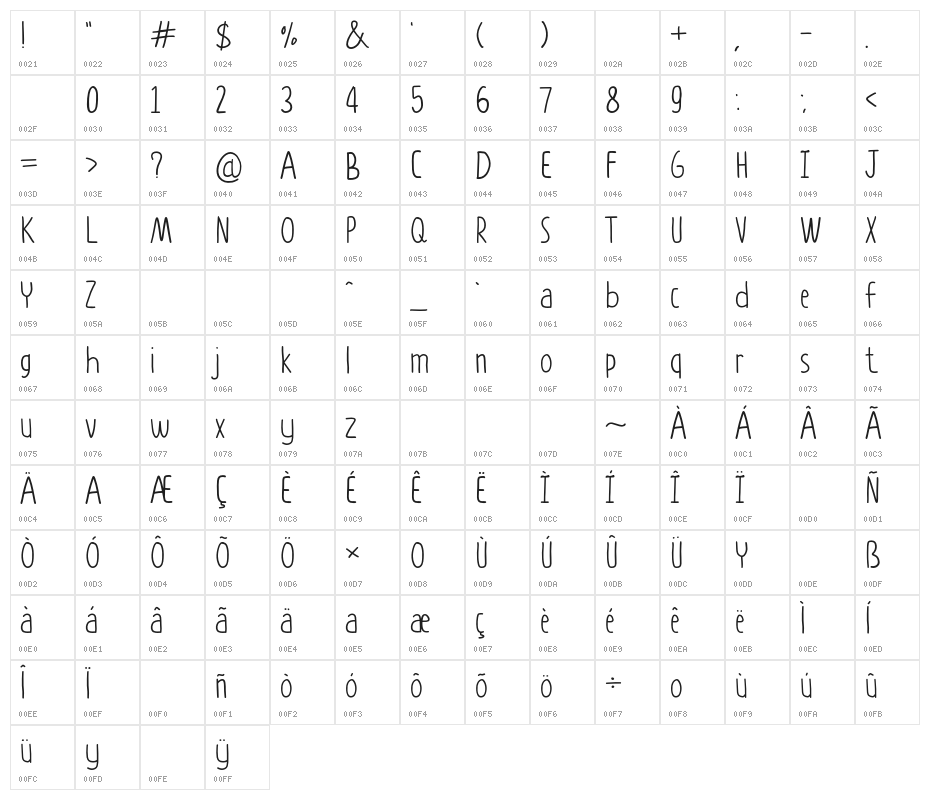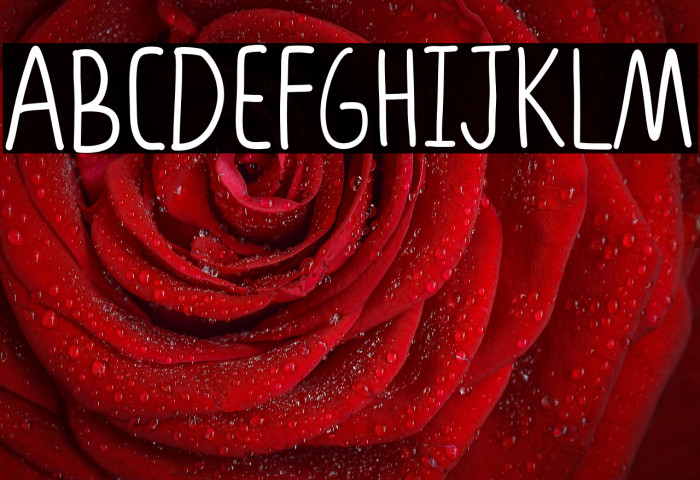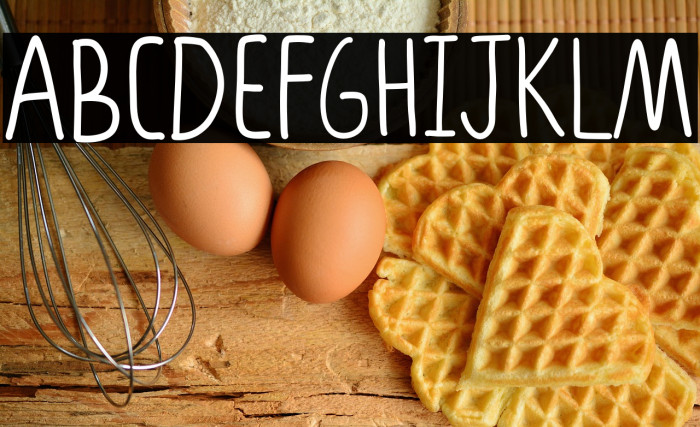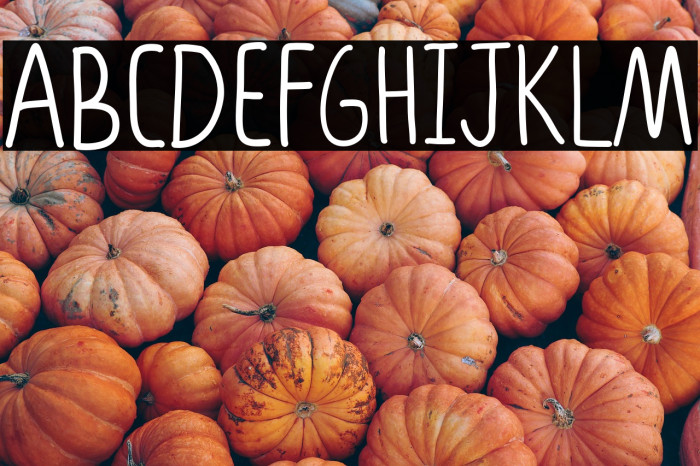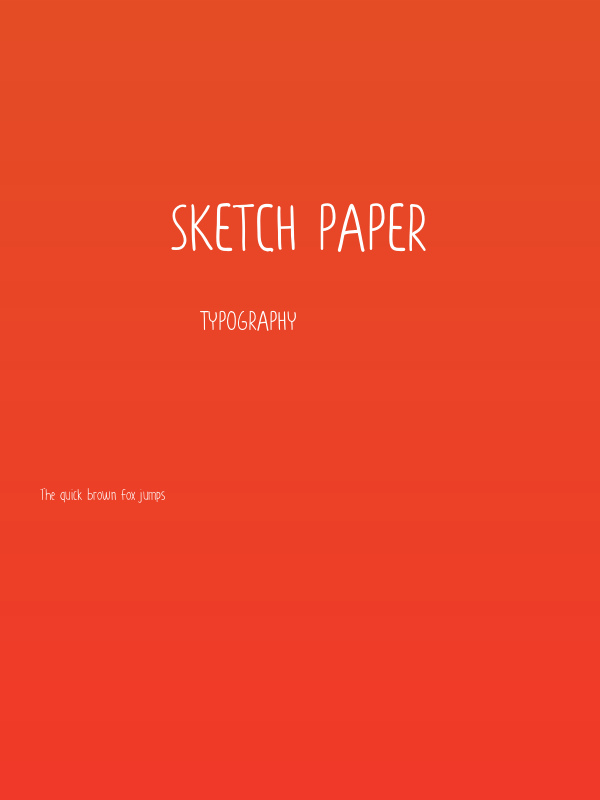
Sketch Paper Font
Sketch Paper Description
This font features a playful, handwritten style that exudes a casual and friendly vibe. The characters are slightly irregular, mimicking the natural flow of handwriting, which adds a personal touch to any design. The strokes are consistent in width, providing a balanced appearance, while the overall form is slightly elongated, giving it a unique character. The font includes a full set of uppercase and lowercase letters, numbers, and a variety of special characters, making it versatile for different uses. Its informal style makes it perfect for projects that aim to convey warmth and approachability.
| Overall Style | Casual, Friendly |
| Use Case | Headlines, Informal text, Personal projects |
| Proposed Projects | Ideal for greeting cards, children's books, personal blogs, and informal branding projects. |